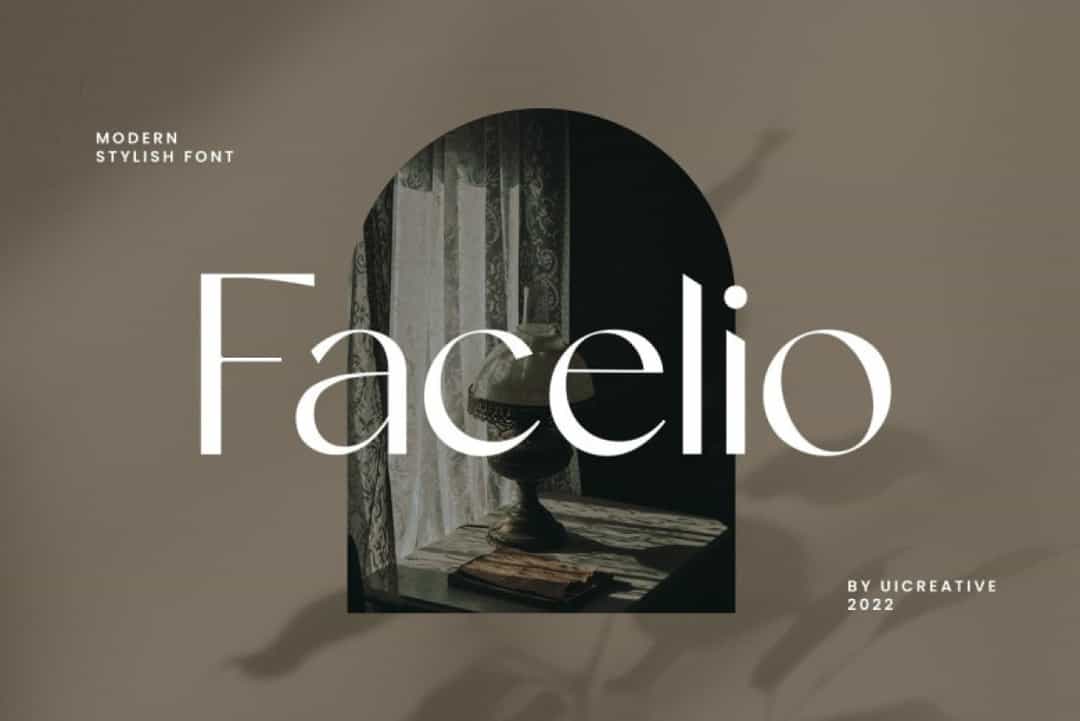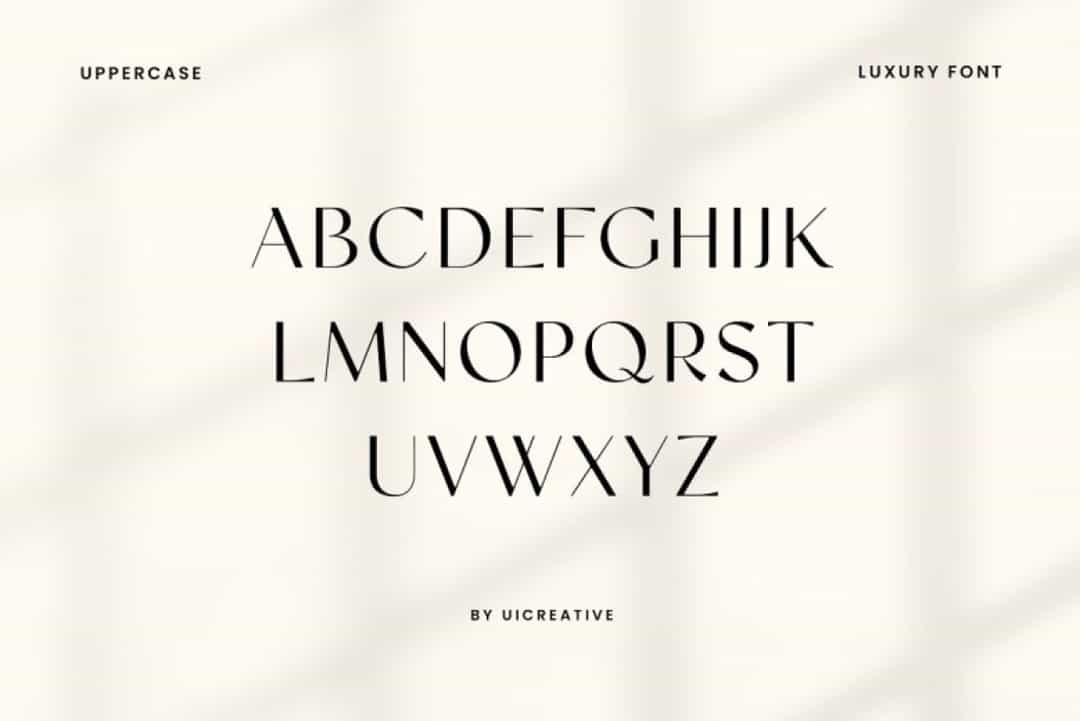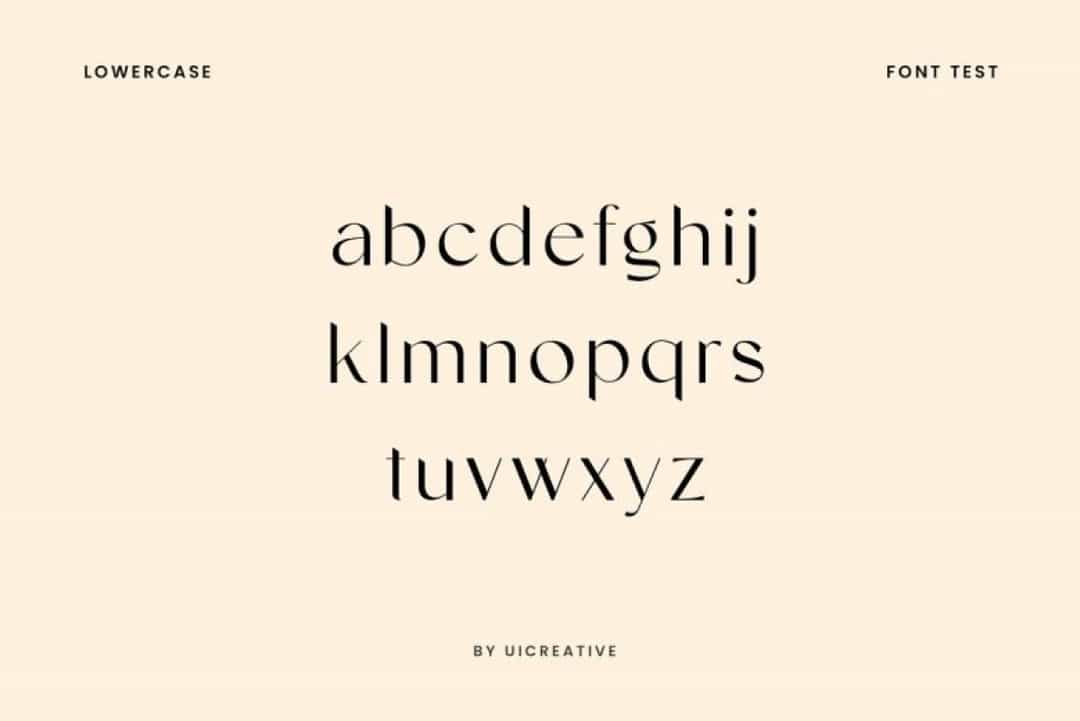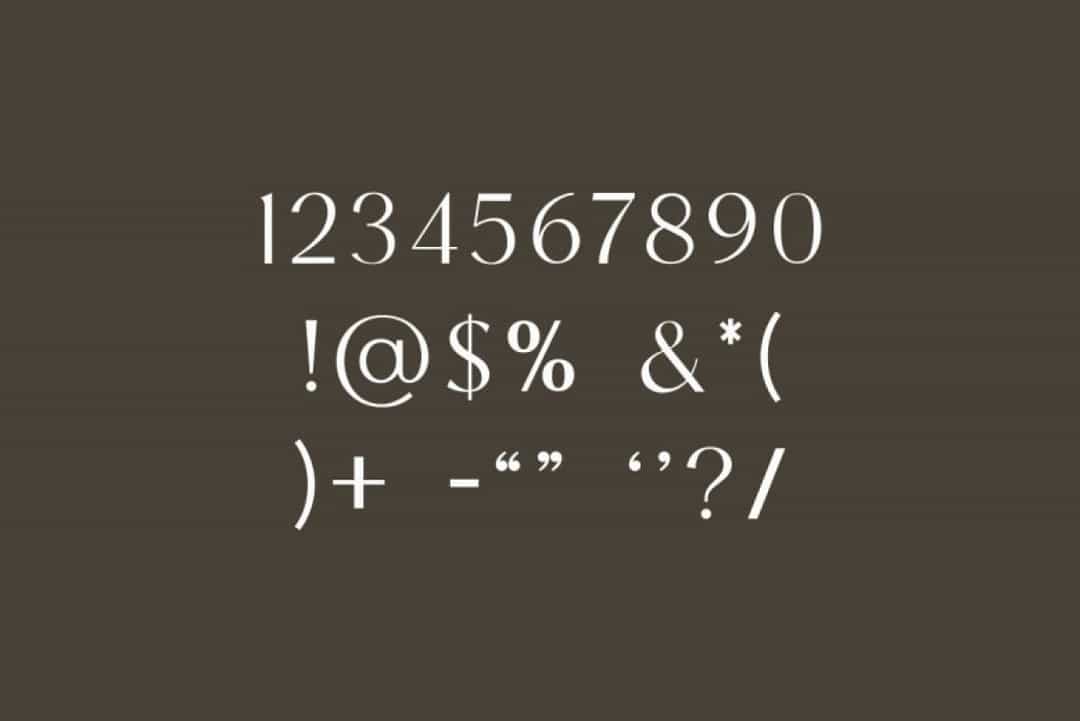
Discover Facelio Font, part of the Sans Serif collection—a versatile and unique font perfect for adding a personal touch to your projects. Download it for free and enjoy crafting designs with style, from invitations to social media posts. This font is available exclusively for personal use, giving you the freedom to create without limits. Unlock your creativity with Facelio Font today!
“Facelio” Font is our new product offering and consists of an elegant yet beautiful contemporary sans serif font. Perfect for logo, signature, stationery wedding and typography quotes on book covers as well as headers for websites; as well as branding clothing packaging design or more!